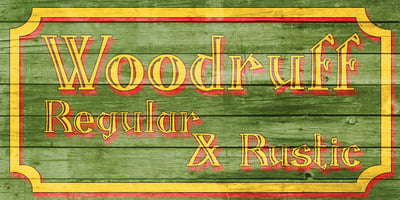
Woodruff
Woodruff font
Woodruff Font Family was designed by published by Greater Albion Typefounders. Woodruff contains 2 styles and family package options. Woodruff was inspired by a piece of charmingly hand-lettered signwriters’ ornamental Roman seen on a half faded away brick wall, on the end of a row of shops. It has a naive hand drawn charm that lends a very special touch to posters, signage and headings. Woodruff is ideal where an atmosphere of primitive charm, with a little regard for aesthetics is required, and can be used in such situations without sacrificing legibility.